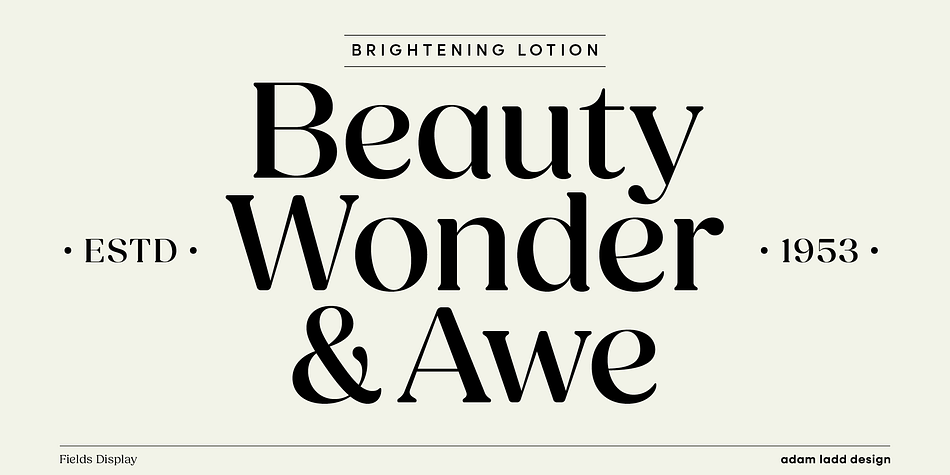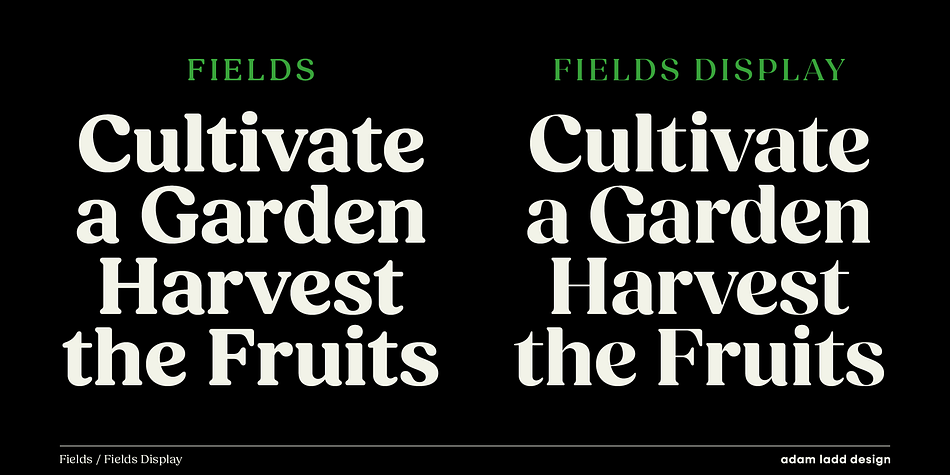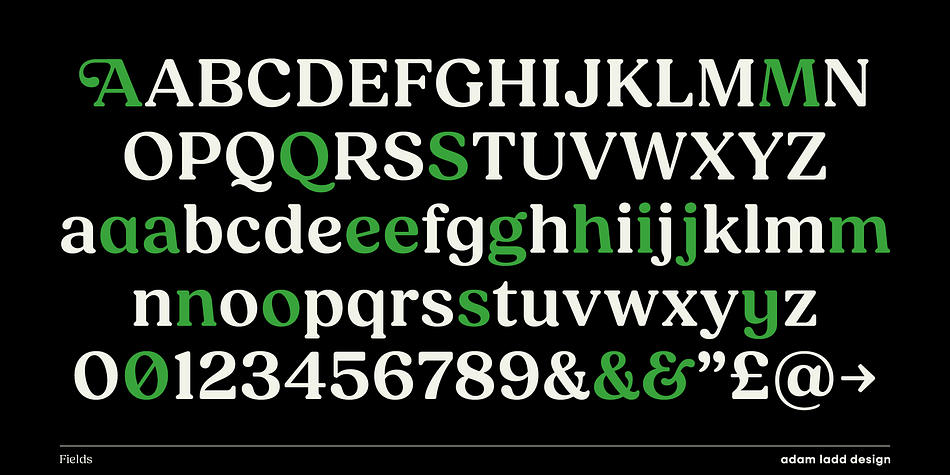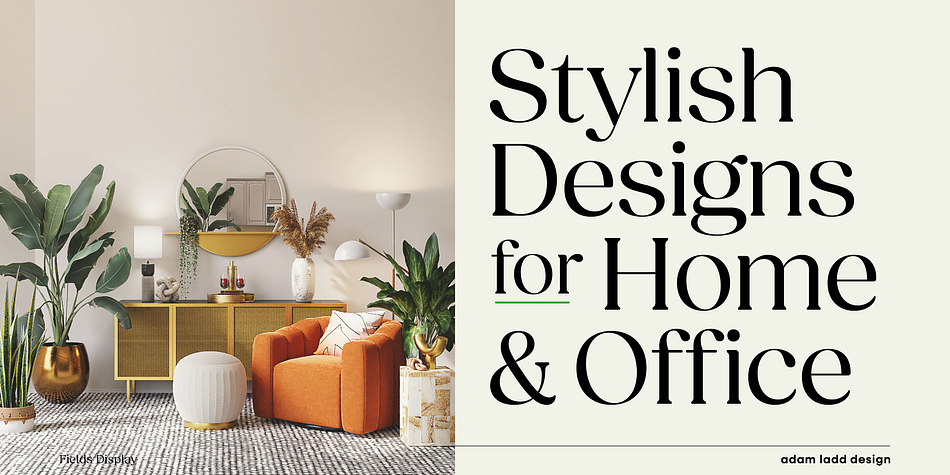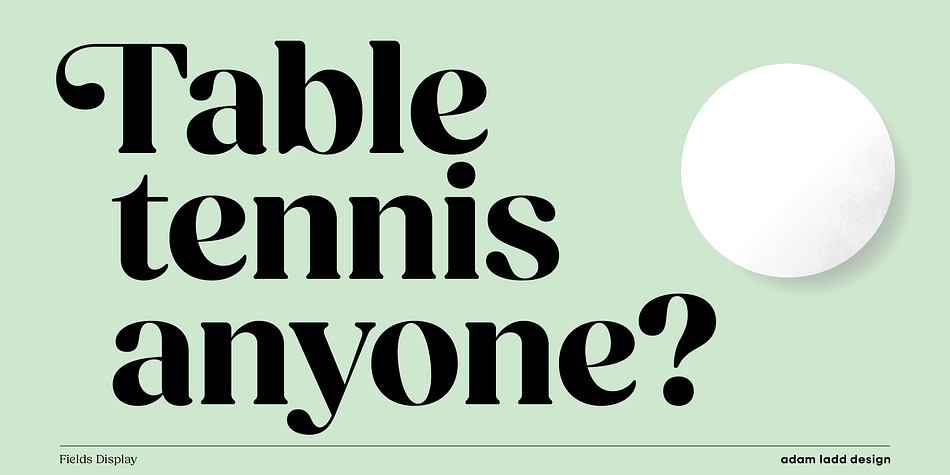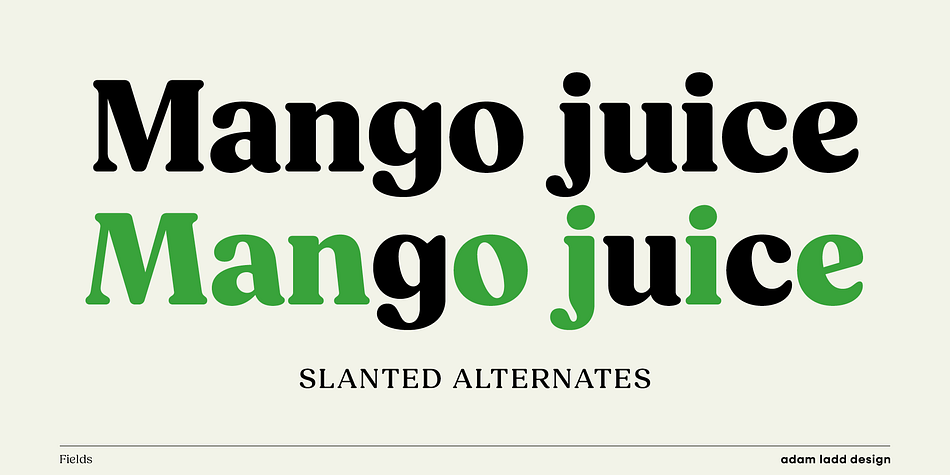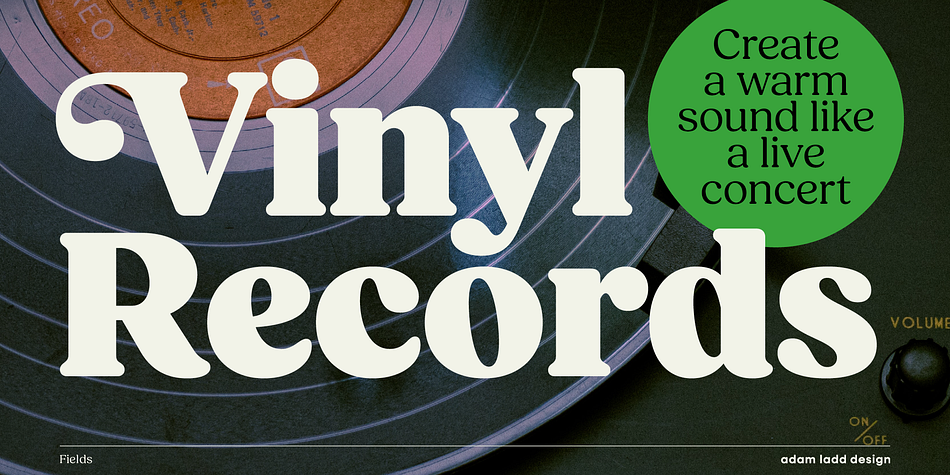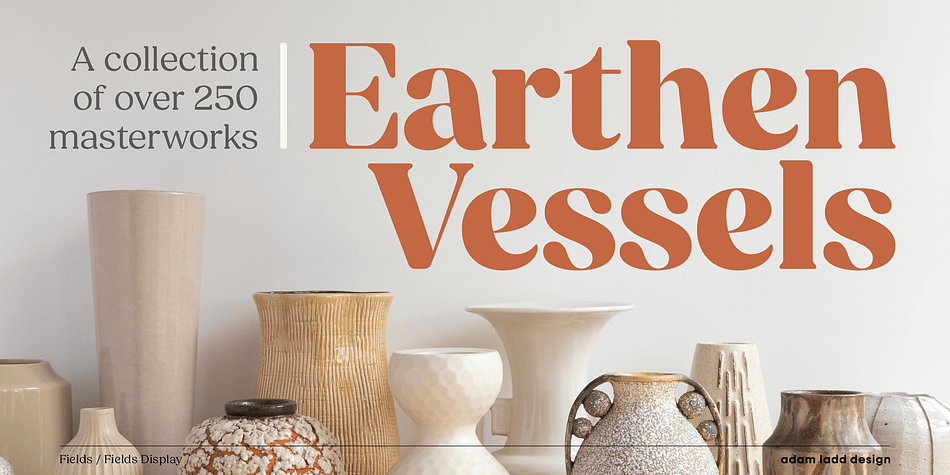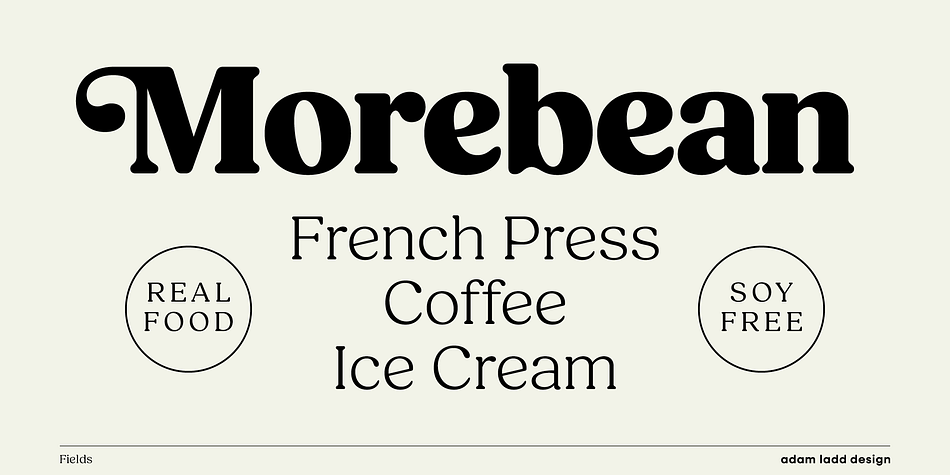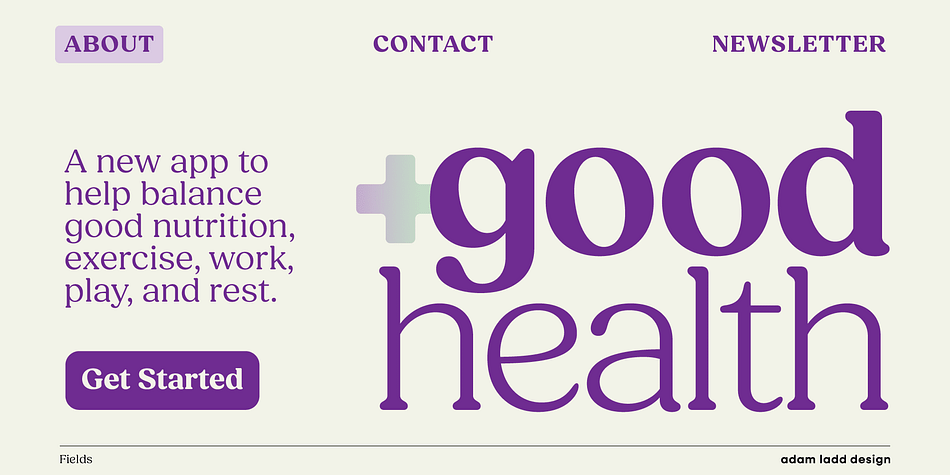
Fields
Designed by Adam Ladd, Fields is a retro and serif font family. This typeface has fourteen styles and was published by Adam Ladd.
Fields is a versatile, soft serif typeface family blending casual, retro tones with modern touches. Design details like rounded serifs, teardrop terminals, and subtle tails make this typeface friendly and approachable, and a large x-height with flat-topped serifs gives it an air of confidence.
Drawing inspiration from familiar classics such as Cooper and Souvenir, Fields is fitting for a contemporary expression of this style. The Fields family exudes pleasant, plumper characters with its medium contrast, while the high contrast in the Fields Display family presents something more fashionable and sophisticated.
The addition of Fields Variable gives you the use of two axis sliders to customize any weight and optical size contrast from Extra Light to Display Black to fine-tune the tone of voice and, more precisely, meet typographic goals.
Fields is excellent for branding right out of the box, but be sure to check out the many alternates, particularly a slanted character set that adds nostalgic appeal. Whether you want that warm, vintage 1970s vinyl record aesthetic or modern packaging with a nod toward something handmade, the range of weights and contrasts in Fields can make it a great choice.
Many features included are swash capitals, stylistic alternates, case-sensitive punctuation, arrow dingbats, fractions, and over 700 glyphs for an extensive multilingual character set supporting 100+ Latin languages.